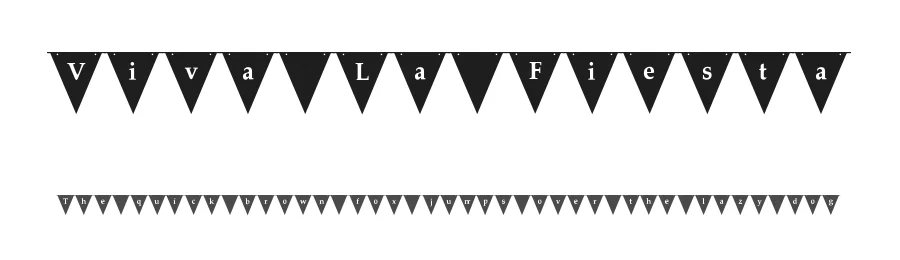
About Flags Font
Flags Font is a decorative font that shines as a display or heading face. Pair it with a clean sans-serif or serif font for body text β the contrast creates a clear hierarchy while the two styles stay balanced and easy to read.
Flags Font
by Sheila Burns
Flags Font is a decorative typeface by Sheila Burns, ideal for logos, invitations, branding, and creative projects.